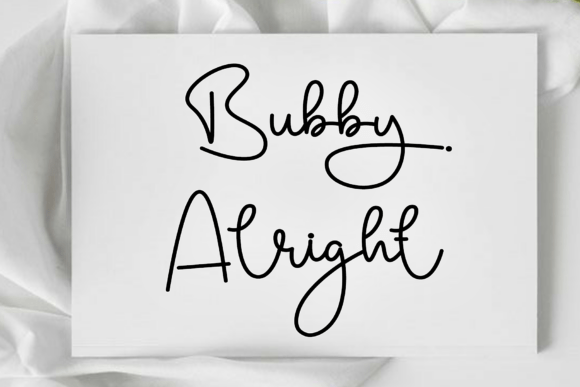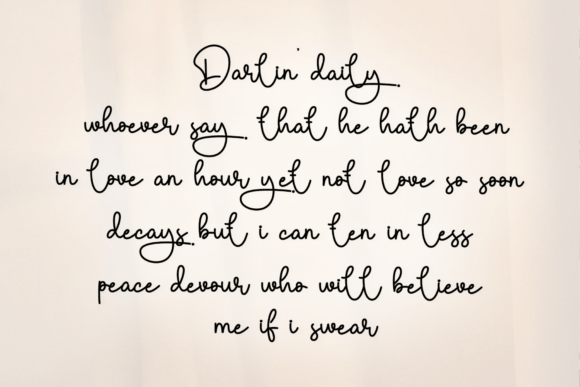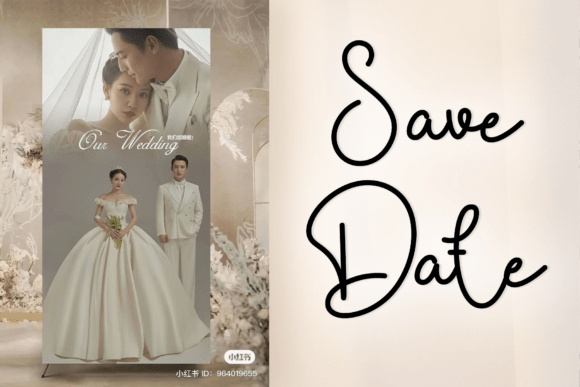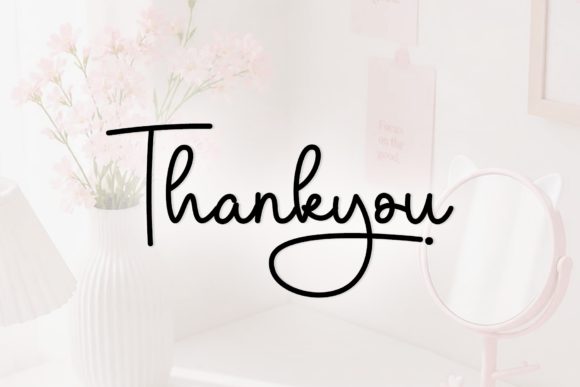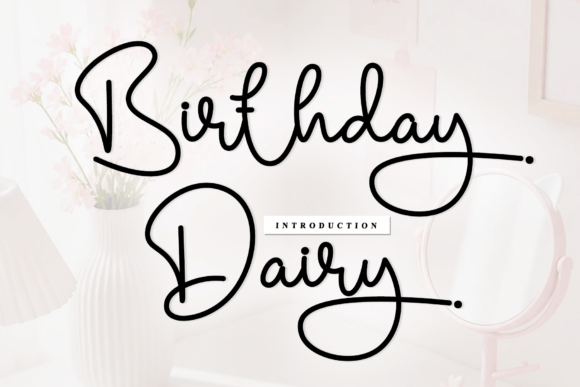
The Birth of a Beautiful Font: Discovering Birthday Dairy
I still remember the design project that led me to Birthday Dairy. I was working on a branding project for a boutique bakery, and I was struggling to find the perfect font that would capture the warmth and artisanal feel of their products. That’s when I stumbled upon Birthday Dairy, a sophisticated and rhythmic script font that instantly resonated with me. In this article, I’ll share my experience with this beautiful font, its features, and how to make the most of it in your designs.
A Personal Review: What I Love About Birthday Dairy
Here’s what I love about Birthday Dairy:
• ✨ Sweeping, looping ascenders that create a sense of customized, artisanal artistry
• ✅ Perfect balance of calligraphic style and warm, organic aesthetic
• 🎨 Highly versatile and suitable for various design projects, from artisanal food branding to upscale lifestyle marketing
• 💫 Beautifully crafted to add a touch of elegance and sophistication to any design
While Birthday Dairy is an amazing font, there are a few things to keep in mind:
• ⚠️ Some characters may require manual kerning to achieve optimal spacing
• 🤔 Limited use of uppercase letters might make it less suitable for certain design projects
The Story Behind Birthday Dairy
Birthday Dairy was designed with the intention of capturing the essence of artisanal craftsmanship in a digital font. The designer aimed to create a font that would evoke a sense of warmth, elegance, and sophistication, while still being highly legible and versatile. The result is a font that is perfect for a wide range of design projects, from food branding to lifestyle marketing.
What is the best use for Birthday Dairy? Birthday Dairy is perfect for artisanal food branding, boutique product packaging, upscale lifestyle marketing, and creative editorial titles.
Is Birthday Dairy suitable for body text? While Birthday Dairy is a beautiful font, it’s best suited for headlines and titles. For body text, you may want to consider a more traditional serif or sans-serif font.
Does Birthday Dairy support OpenType features? Yes, Birthday Dairy supports OpenType features like swashes, stylistic alternates, and glyphs, which can add more variety and flair to your text.